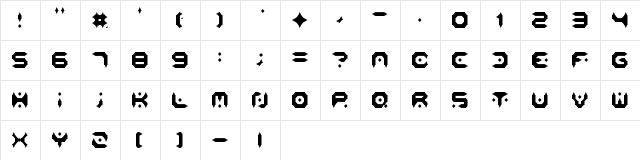
Evil Alien Zone Regular
| Designer | TomoAlien |
Design Context for Evil Alien Zone Typeface
Evil Alien Zone is a composed and adaptable typeface that performs quietly and consistently across a wide range of design contexts.